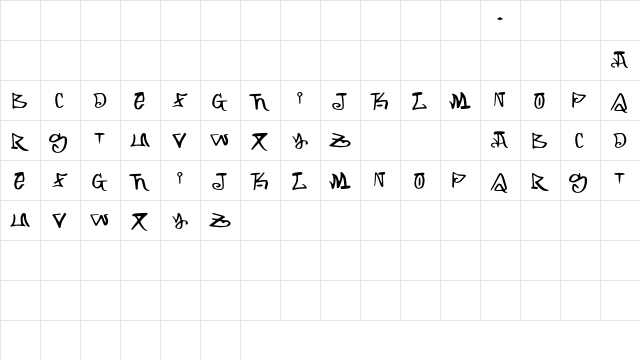
ARKING Regular
Design Context for ARKING Typeface
ARKING is a composed and adaptable typeface that performs quietly and consistently across a wide range of design contexts.